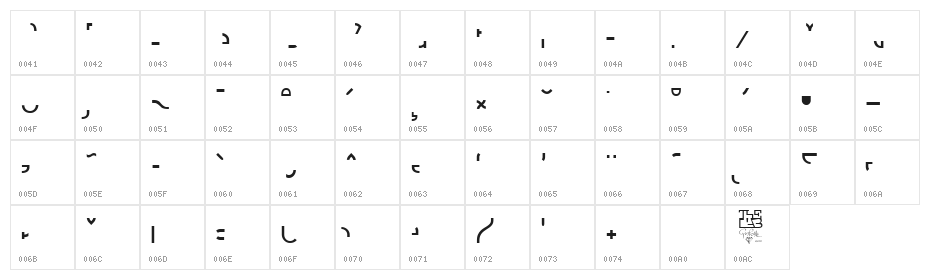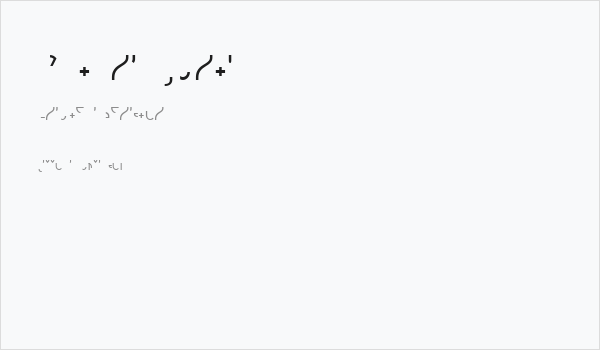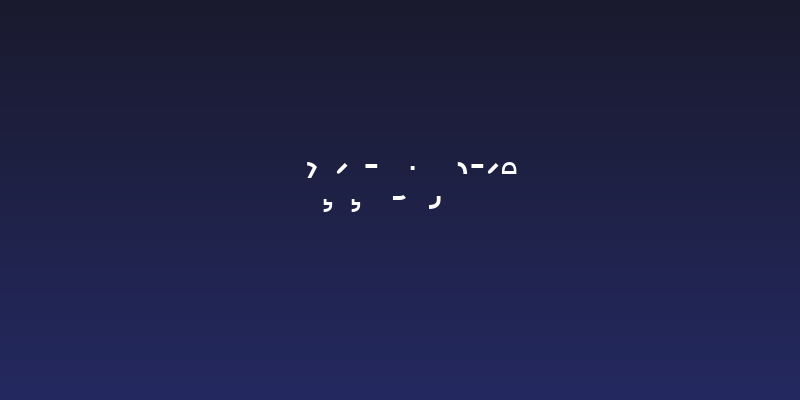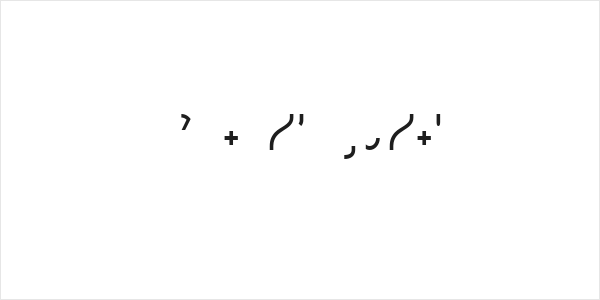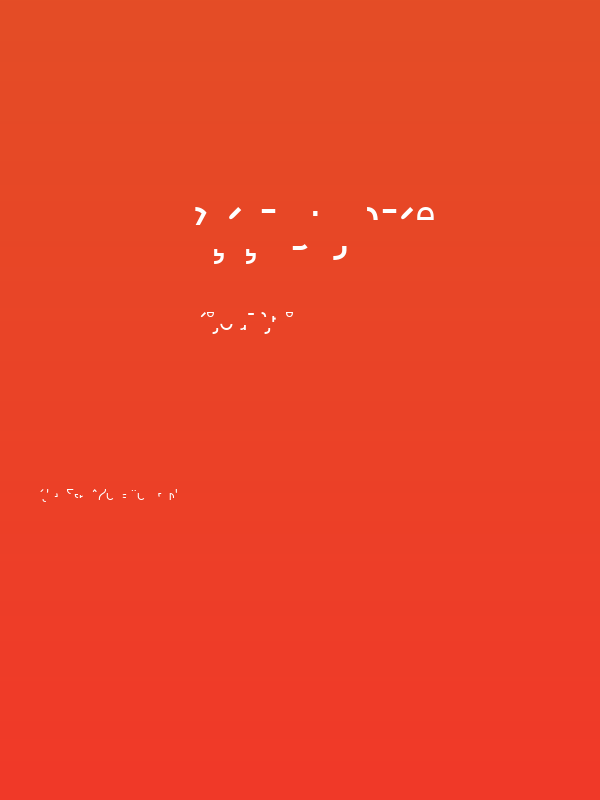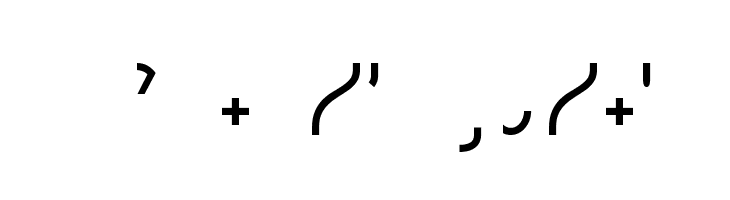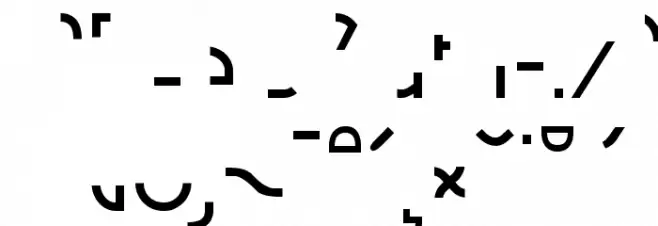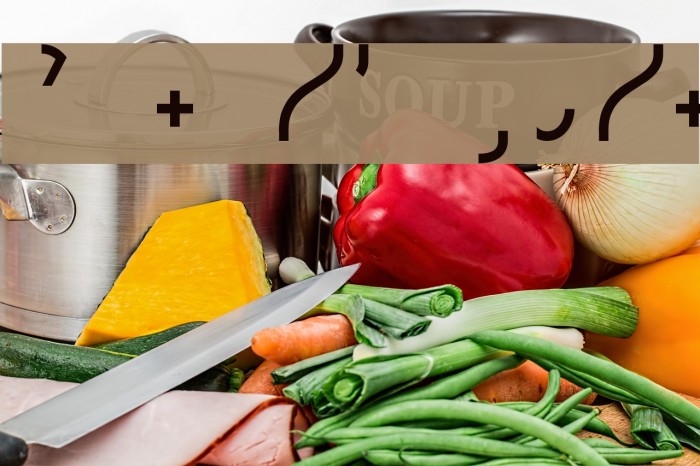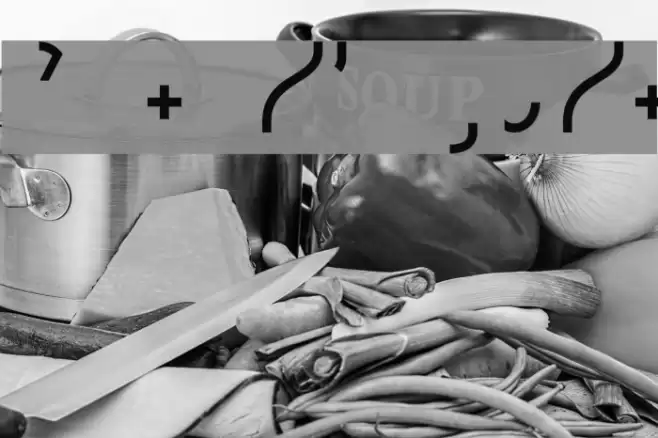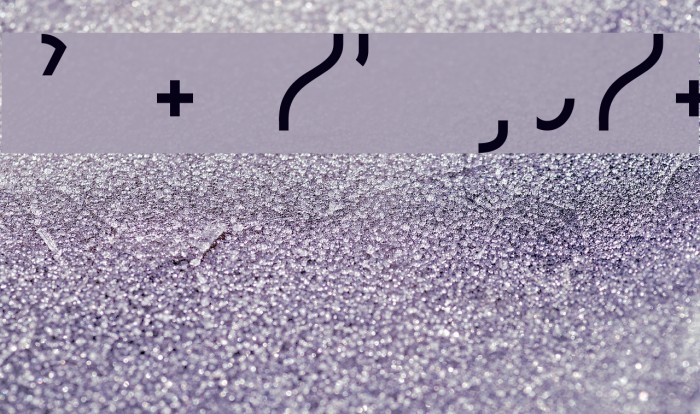
Futurex Parts Font
Futurex Parts Description
This font features a futuristic and abstract design, with characters that are fragmented and stylized in a way that suggests a digital or technological theme. The letters are composed of disjointed parts, creating a sense of movement and complexity. The overall appearance is bold and striking, making it suitable for projects that require a modern and innovative look. The unique structure of each character adds a layer of intrigue and creativity, ideal for capturing attention in visual media.
| Proposed Projects | Ideal for tech branding, sci-fi movie posters, digital art projects, and innovative product packaging. |